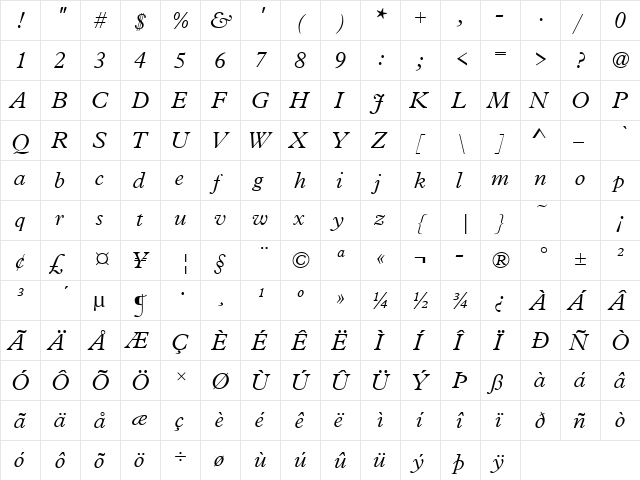
URWPleiadesTLig Italic
Design Context for URWPleiadesTLig Typeface
URWPleiadesTLig is a composed and adaptable typeface that performs quietly and consistently across a wide range of design contexts. Its italic angle brings a sense of urgency and motion to the letterforms.